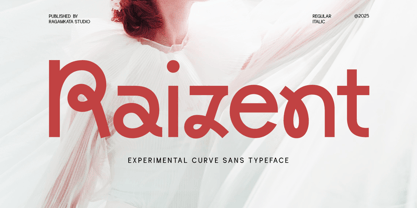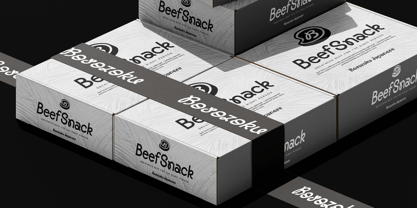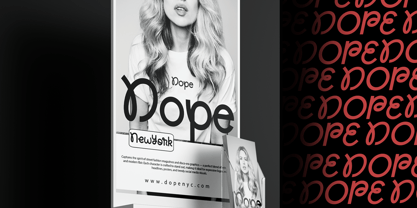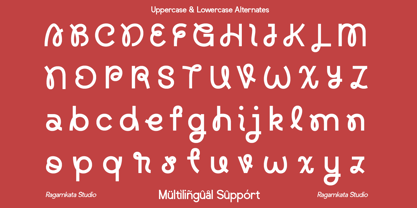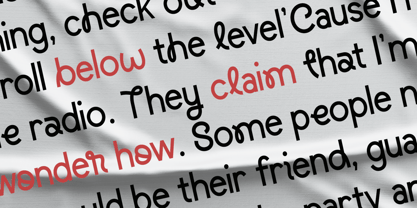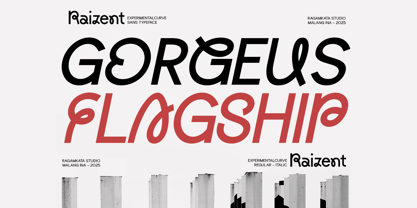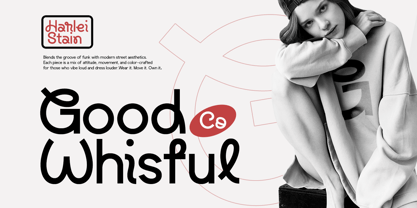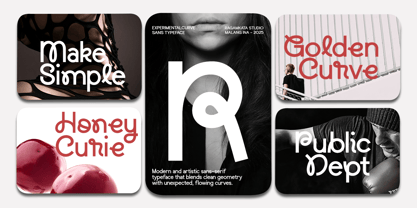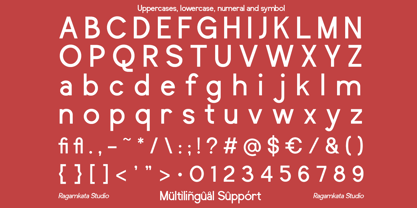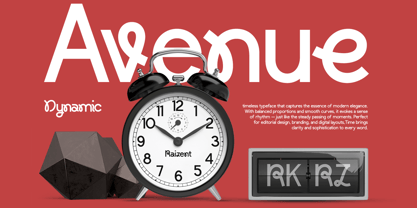
Raizent
The Raizent Font Family was designed by Yogiswhara Dio Prakoso Riadi and published by RagamKata. Raizent contains 2 styles and family package options. More about this family
Raizent is an experimental curve sans typeface that blends geometric structure with playful curves. Designed for modern branding, creative posters, and digital typography, Raizent offers a bold, unique identity in both regular and italic styles. Perfect for designers seeking innovation, style, and visual rhythm in every letterform. File Included : - Raizent Regular - Raizent Italic - Stylistic Alternates - Multilingual Support Thanks, Have a wonderful Day Ragamkata Studio